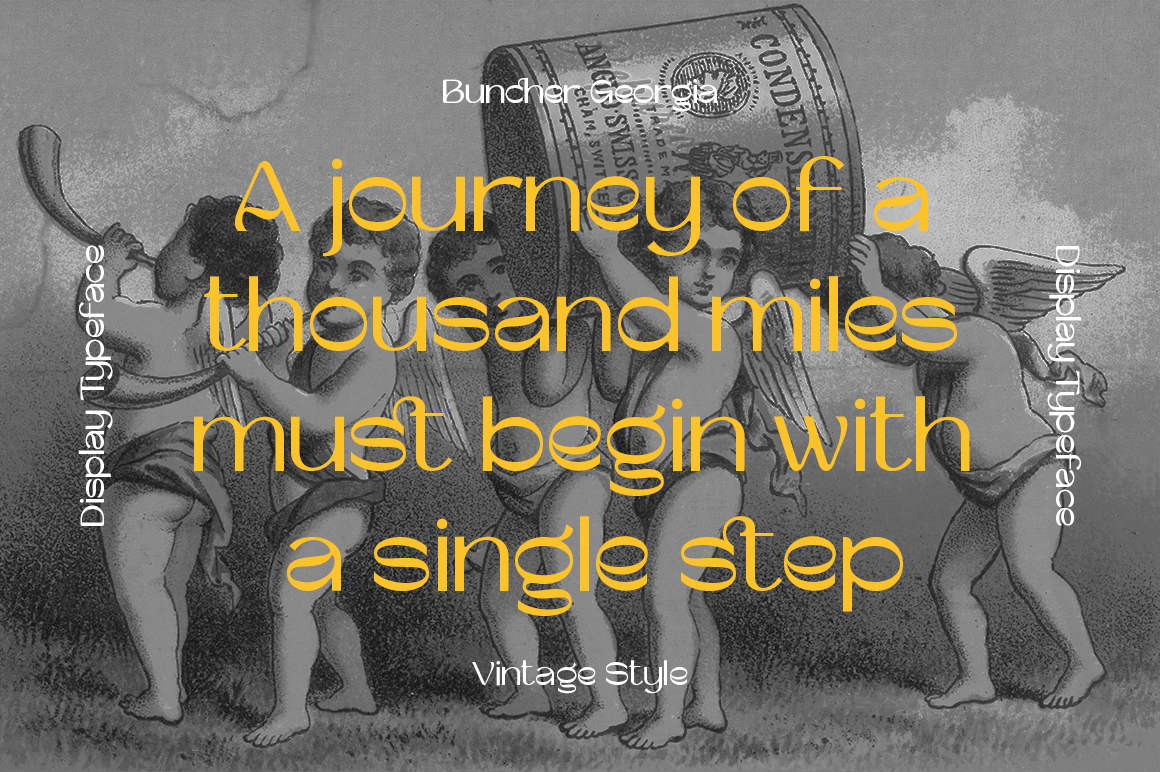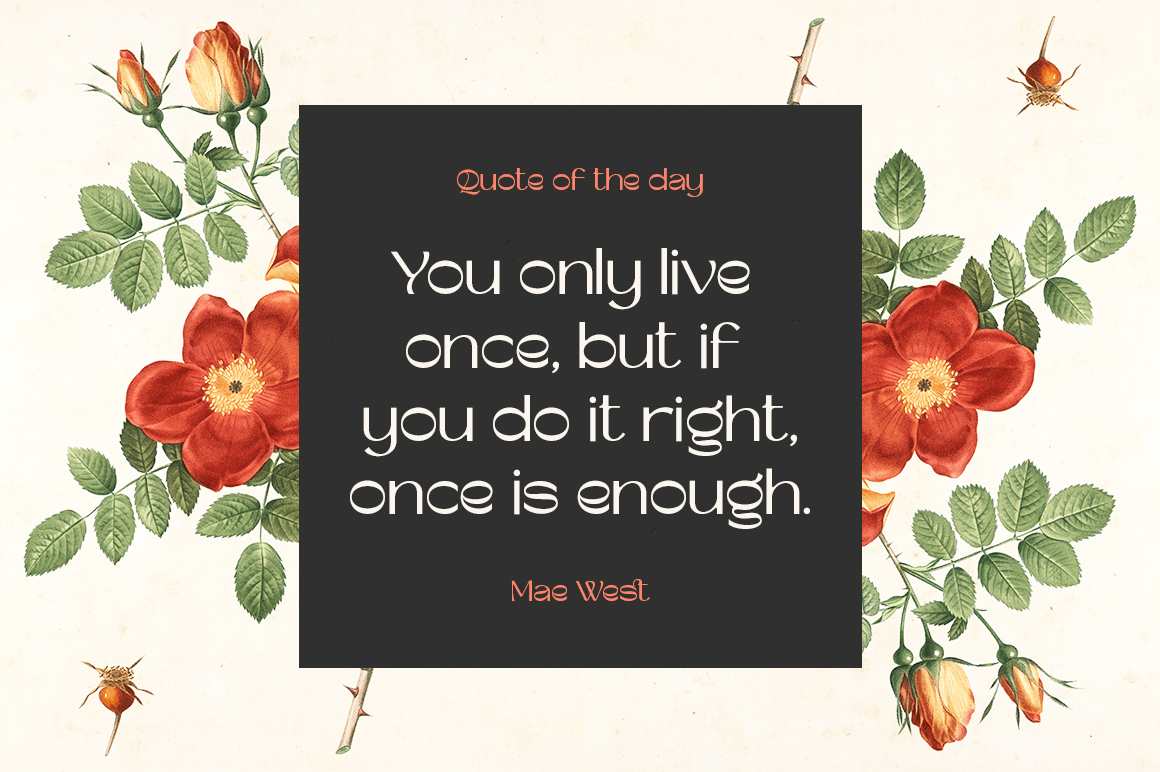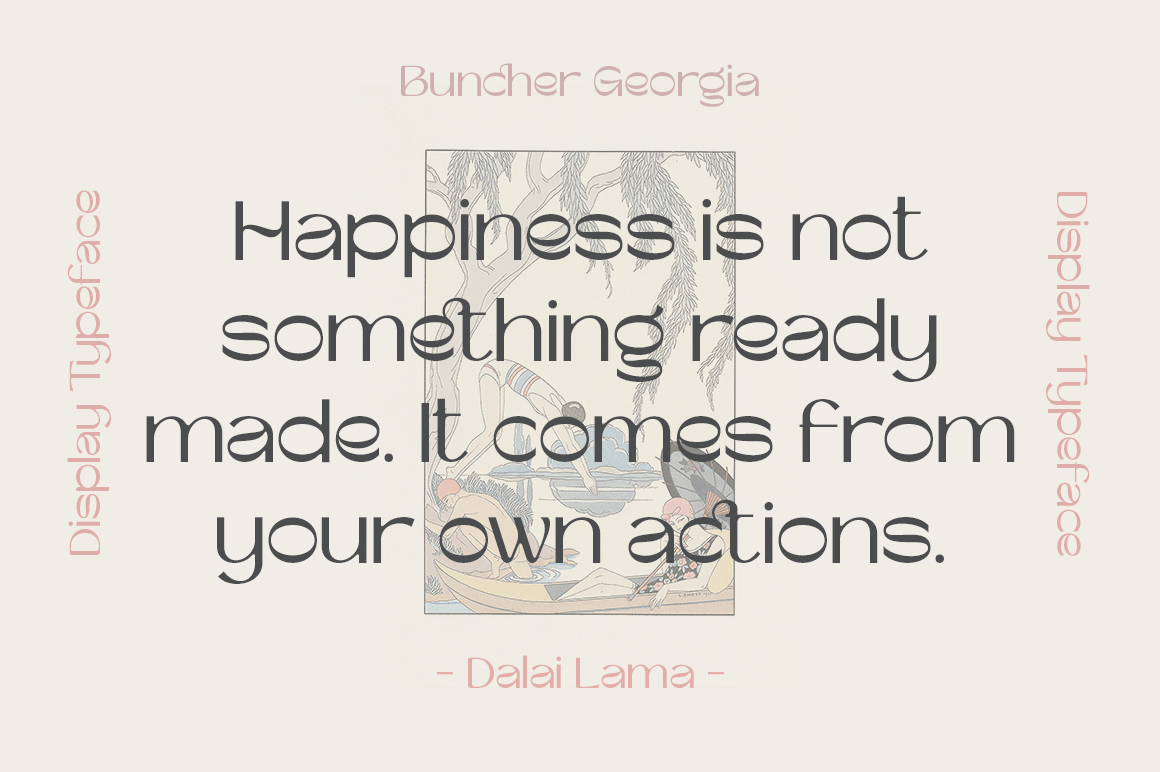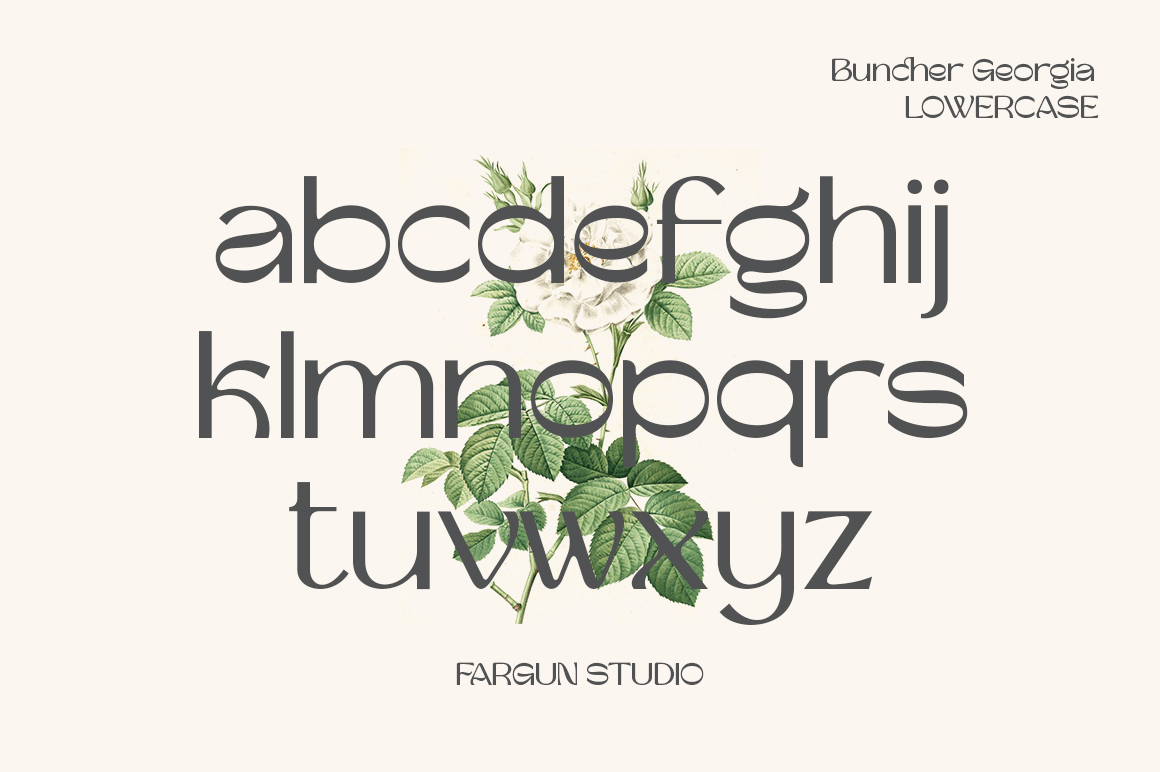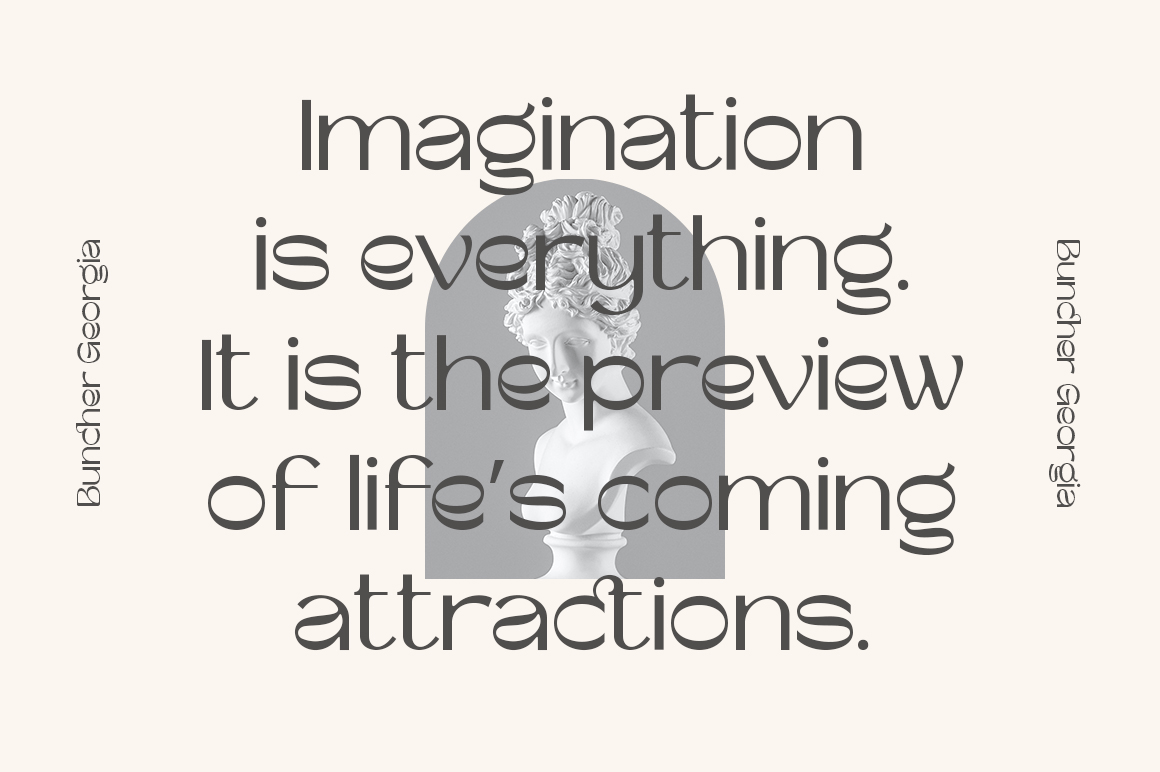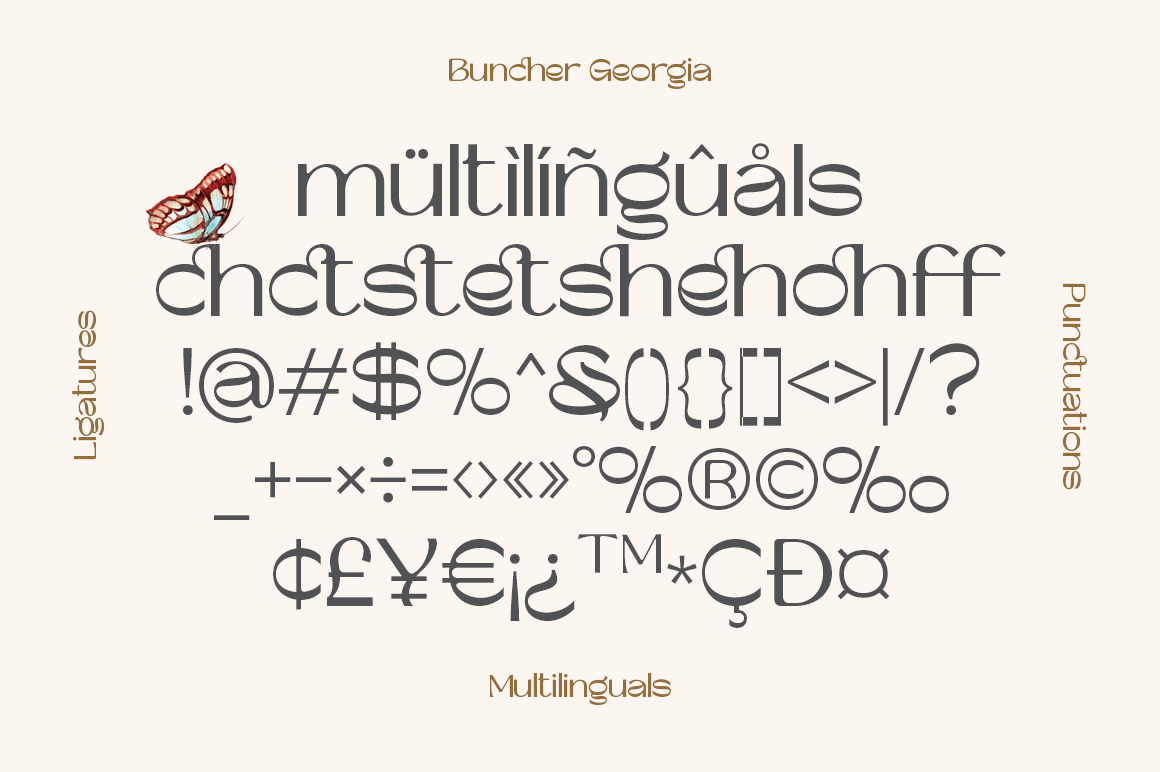
Buncher Georgia
About Buncher Georgia
Buncher Georgia is a vintage display typeface inspired by the art of ancient decoration which is suitable for retro-style designs with ancient concepts.